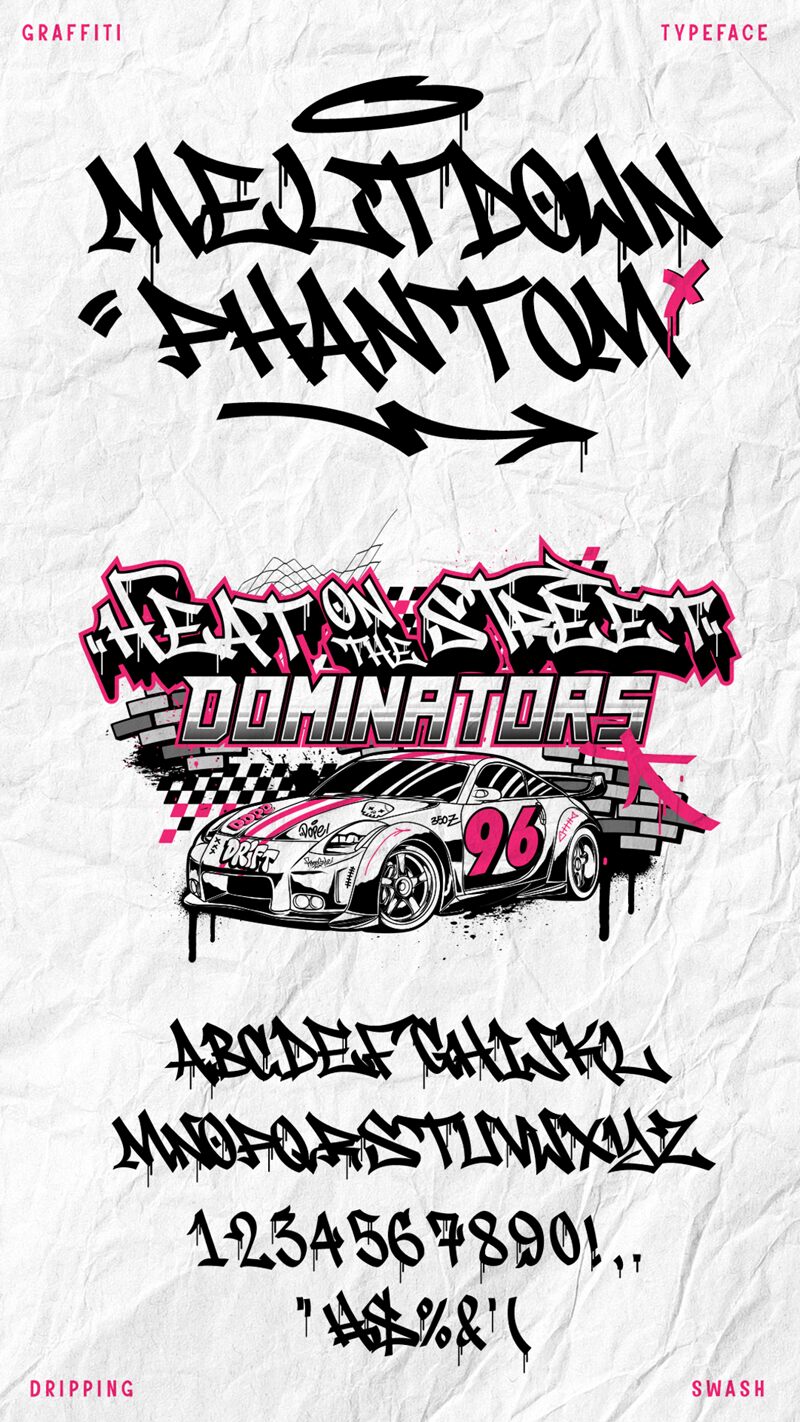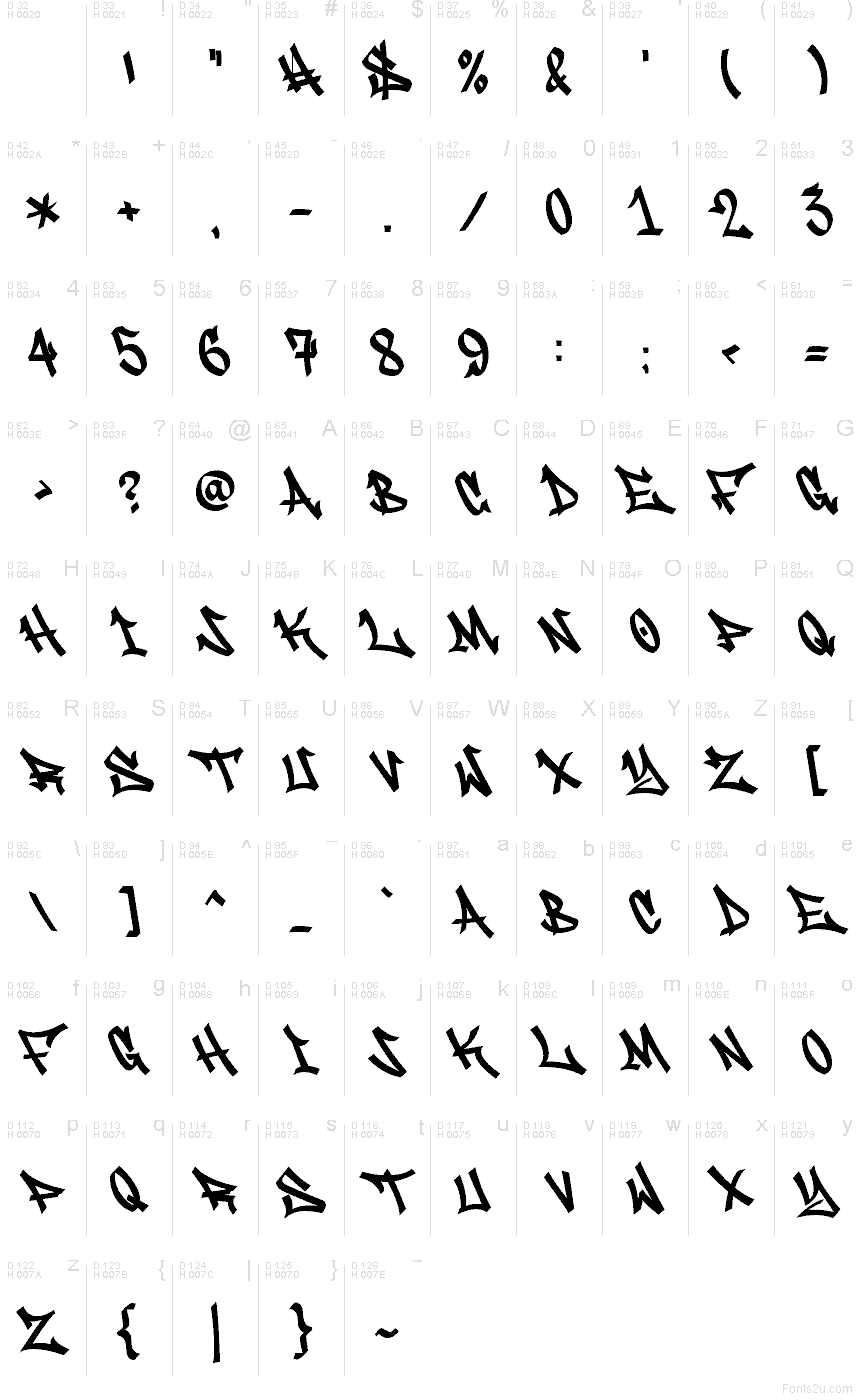
Meltdown Phantom
Meltdown Phantom font by Muhammad Panji Ramdhani of Cikareotype is a free graffiti font with sharp, cut-metal strokes and a jittery handstyle that feels like it was sprayed fast, then carved back with a blade. The letters spike and swing with street-poster energy, keeping a rough rhythm even when the word gets long. It’s loud without getting muddy, so your message still reads at a glance.
Using Meltdown Phantom, reach for music and skate branding, streetwear tags, album covers, YouTube thumbnails, gaming overlays, event flyers, and edgy sticker designs where attitude matters. This free font shines best in short lines—give it breathing room and let those jagged angles bite. Pair it with a clean geometric sans for dates, credits, or small print to keep the layout crisp.